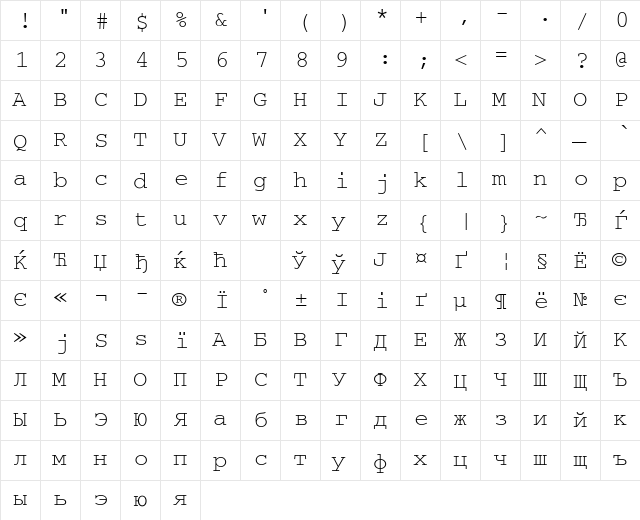
CourierWINCTT Regular
Design Context for CourierWINCTT Typeface
CourierWINCTT brings the precise, column-aligned rhythm of monospaced typography to designs that value technical clarity and systematic order.
Well-suited to data-driven dashboards, coding tutorials, and any design that wants to reference the world of programming.
Pro Tip: Use CourierWINCTT with slightly increased line-height for extended reading — fixed-width spacing can feel dense in longer passages without extra breathing room.